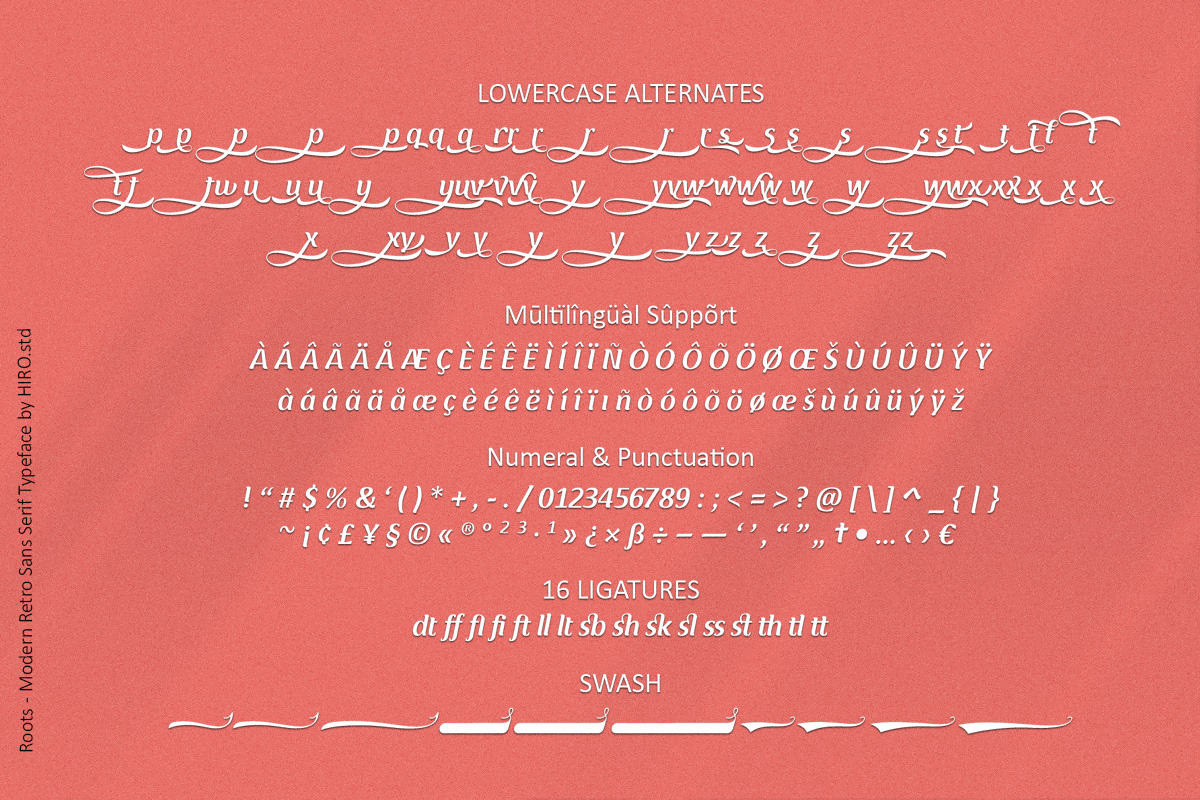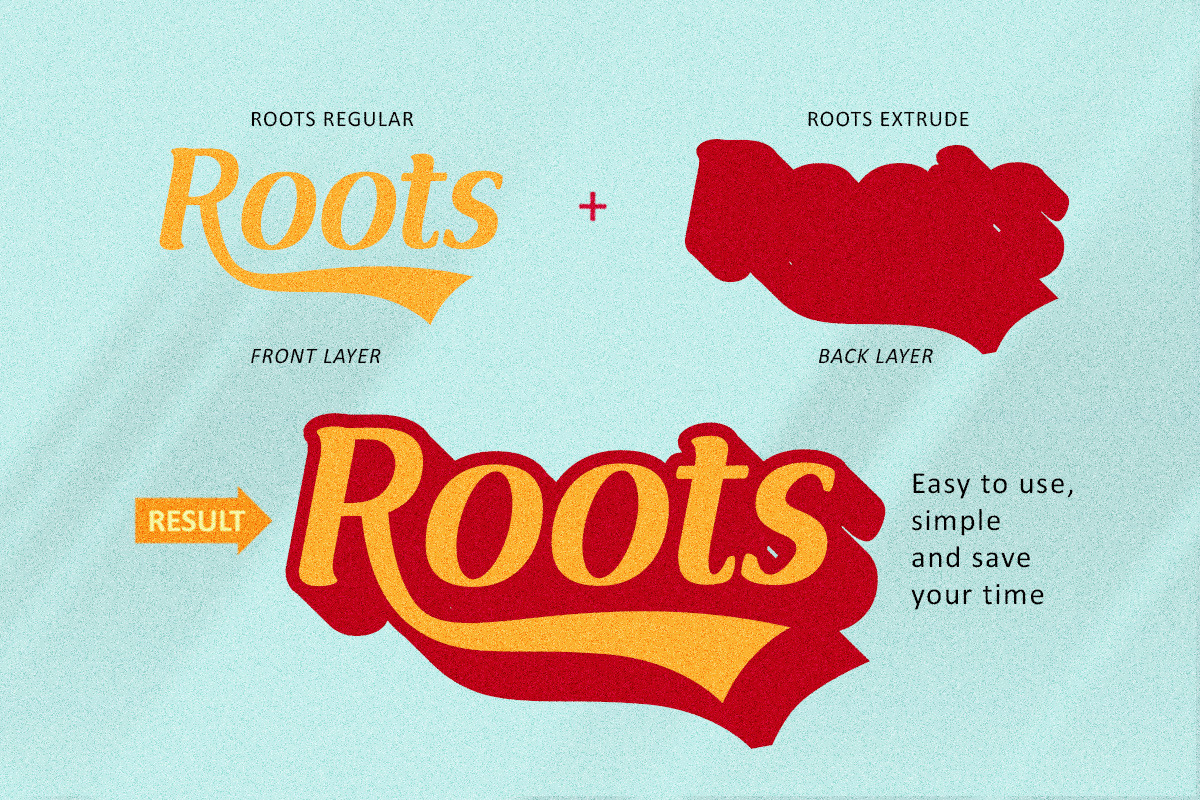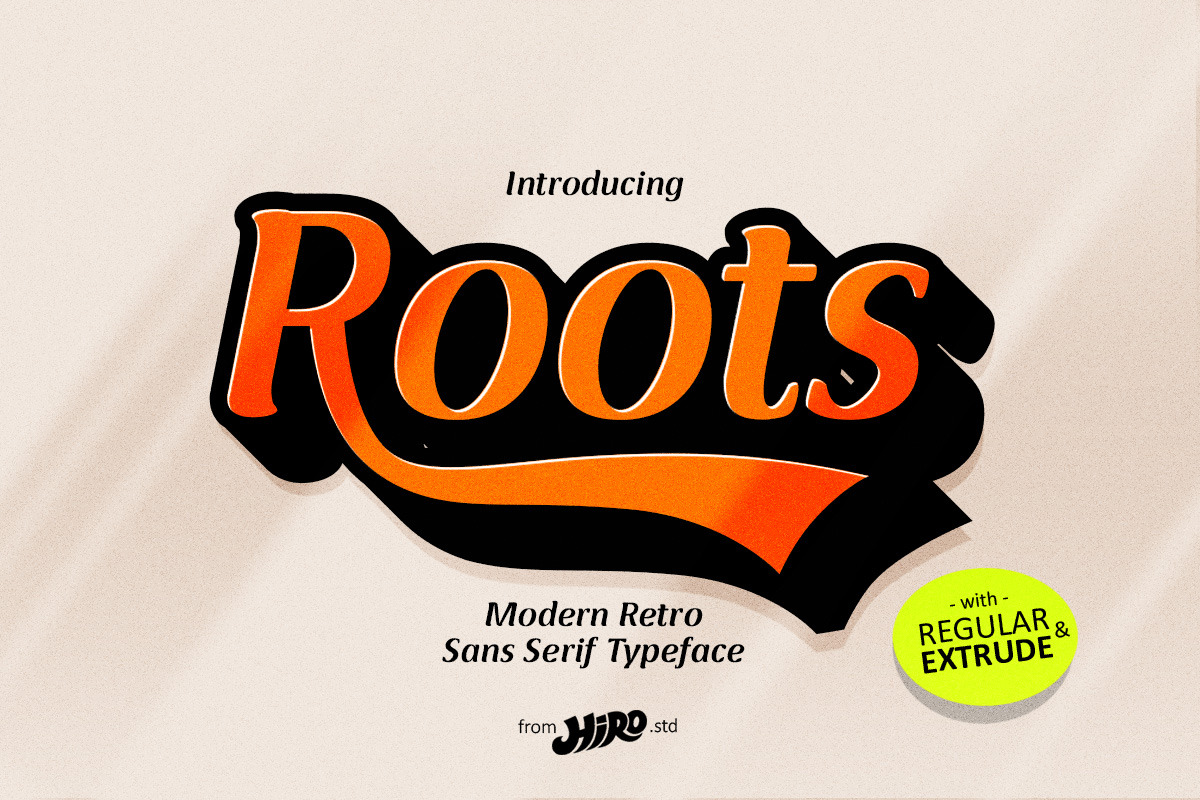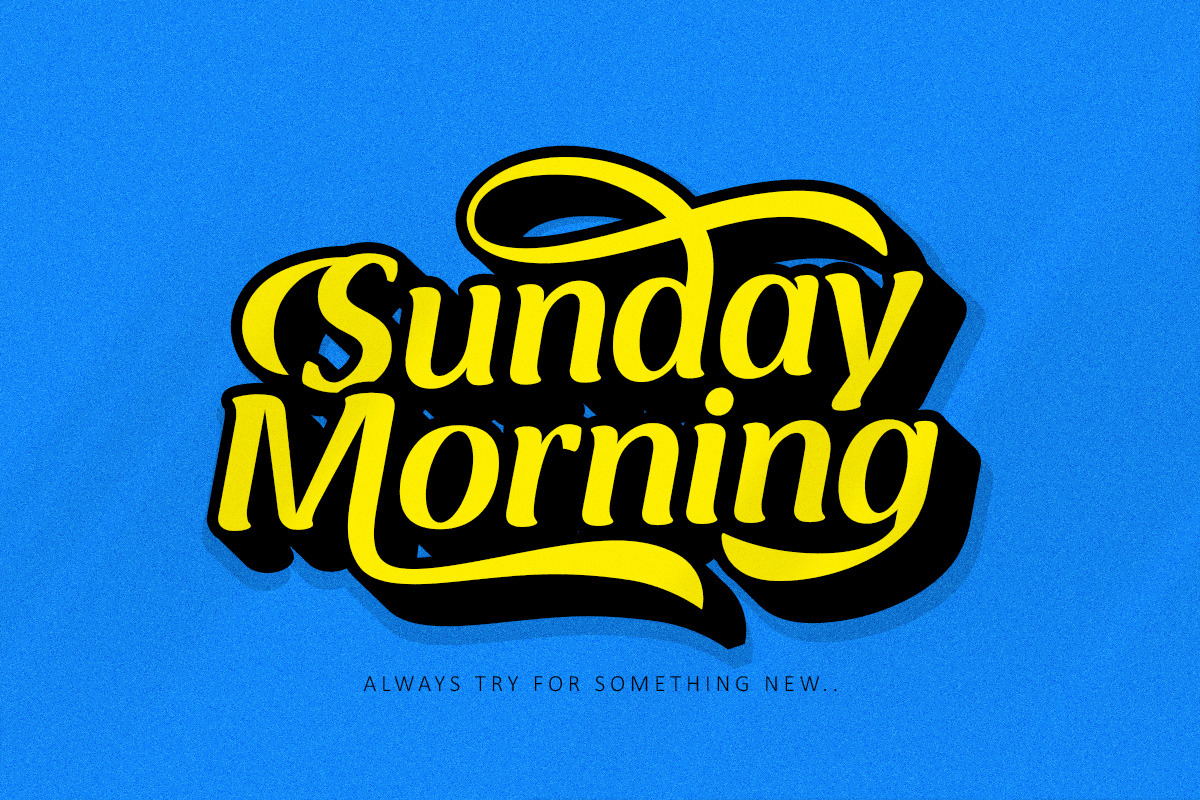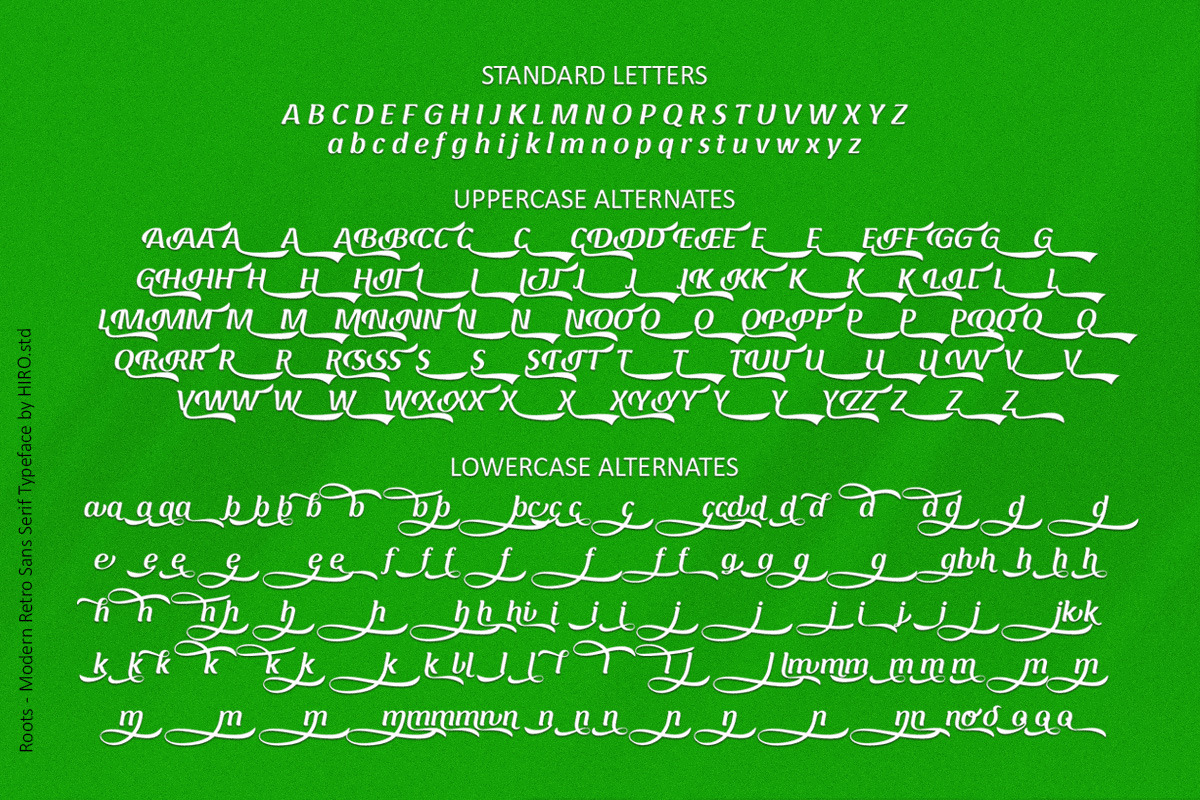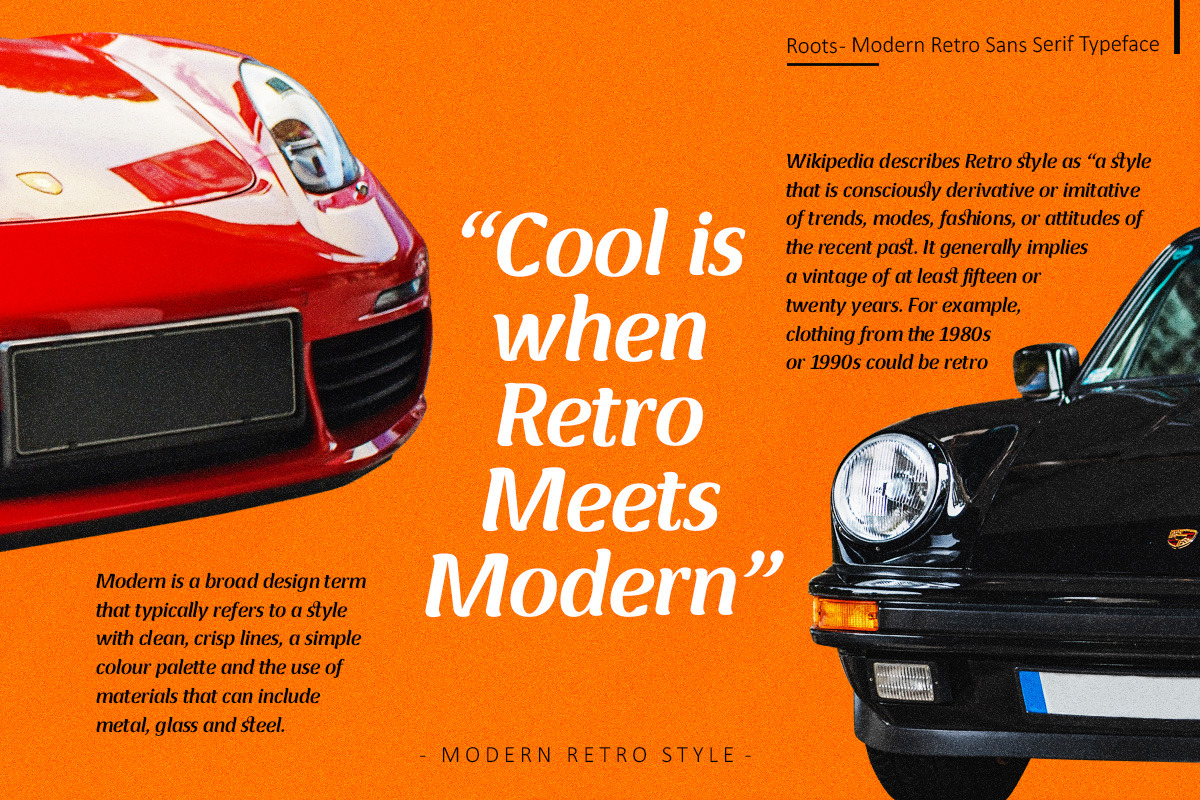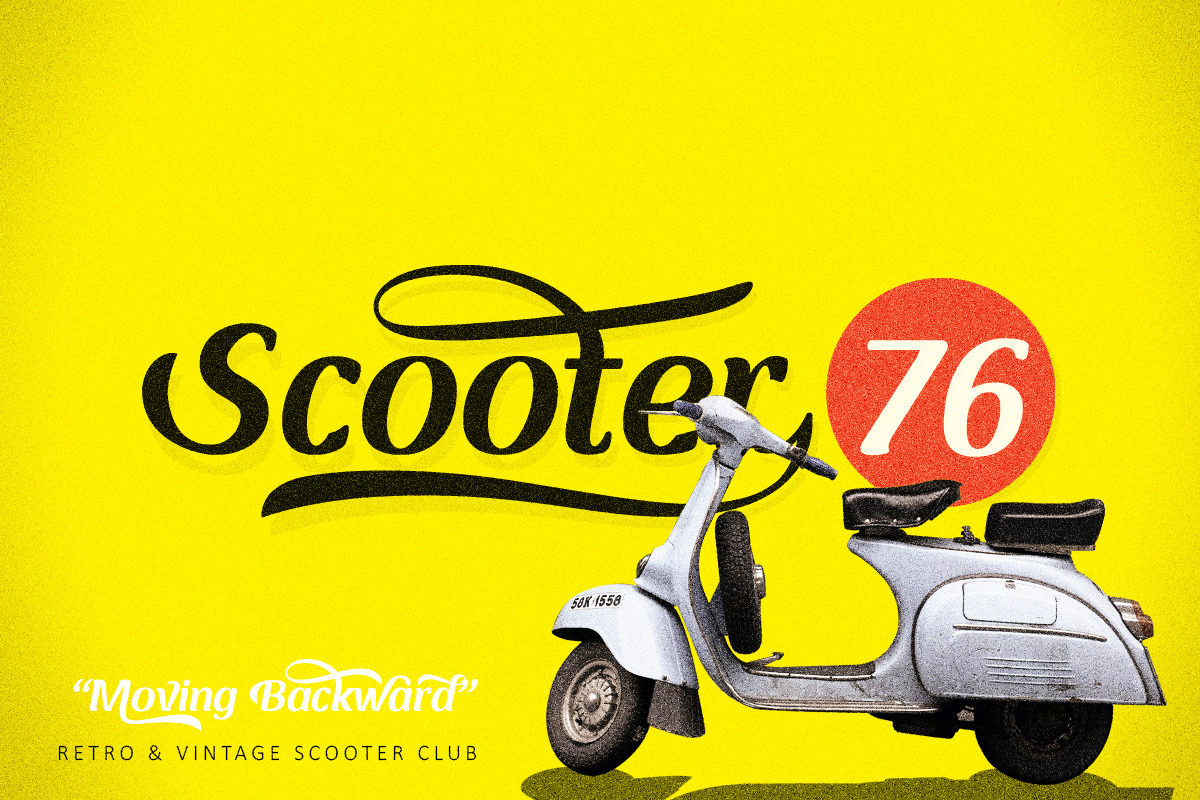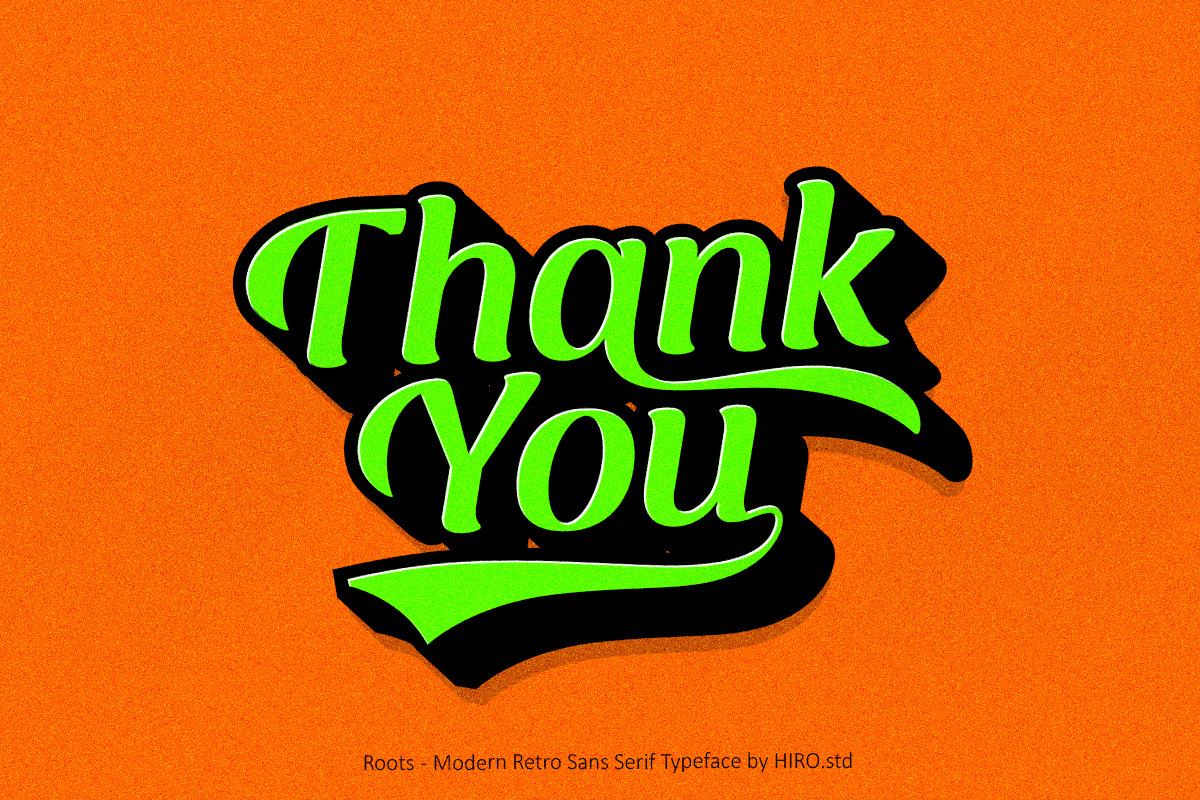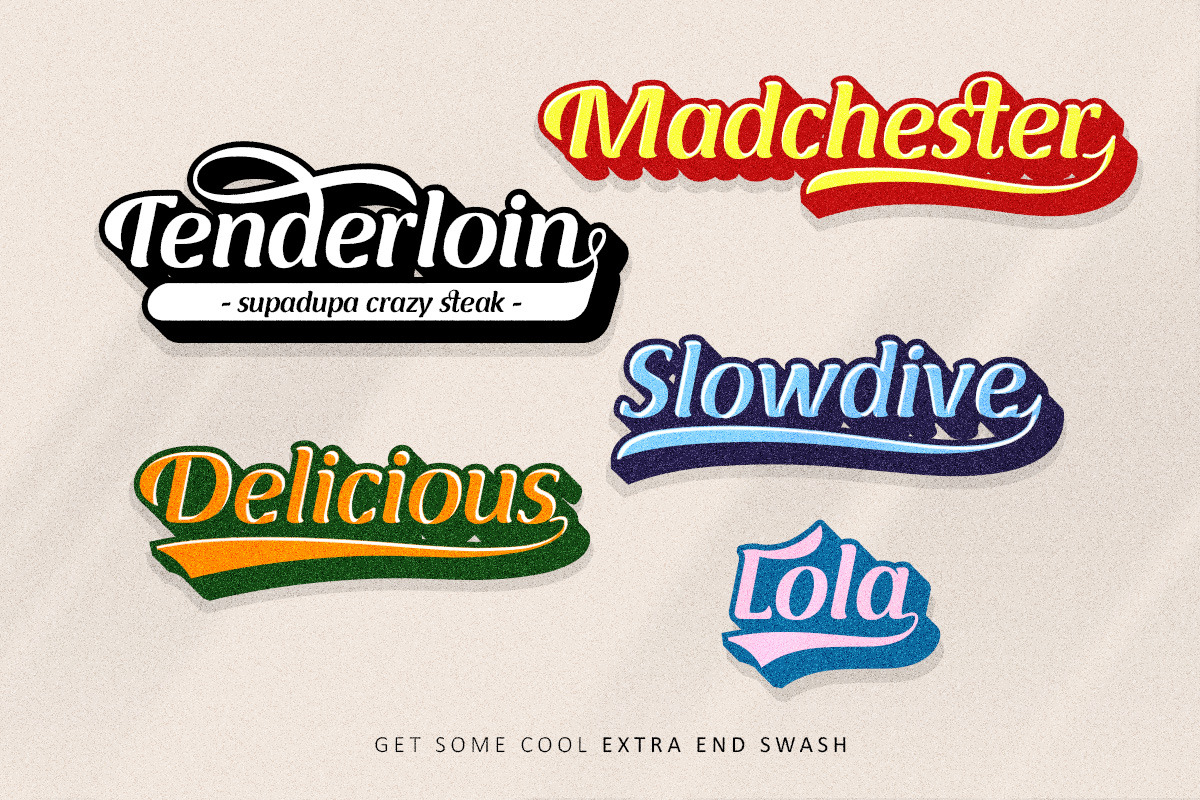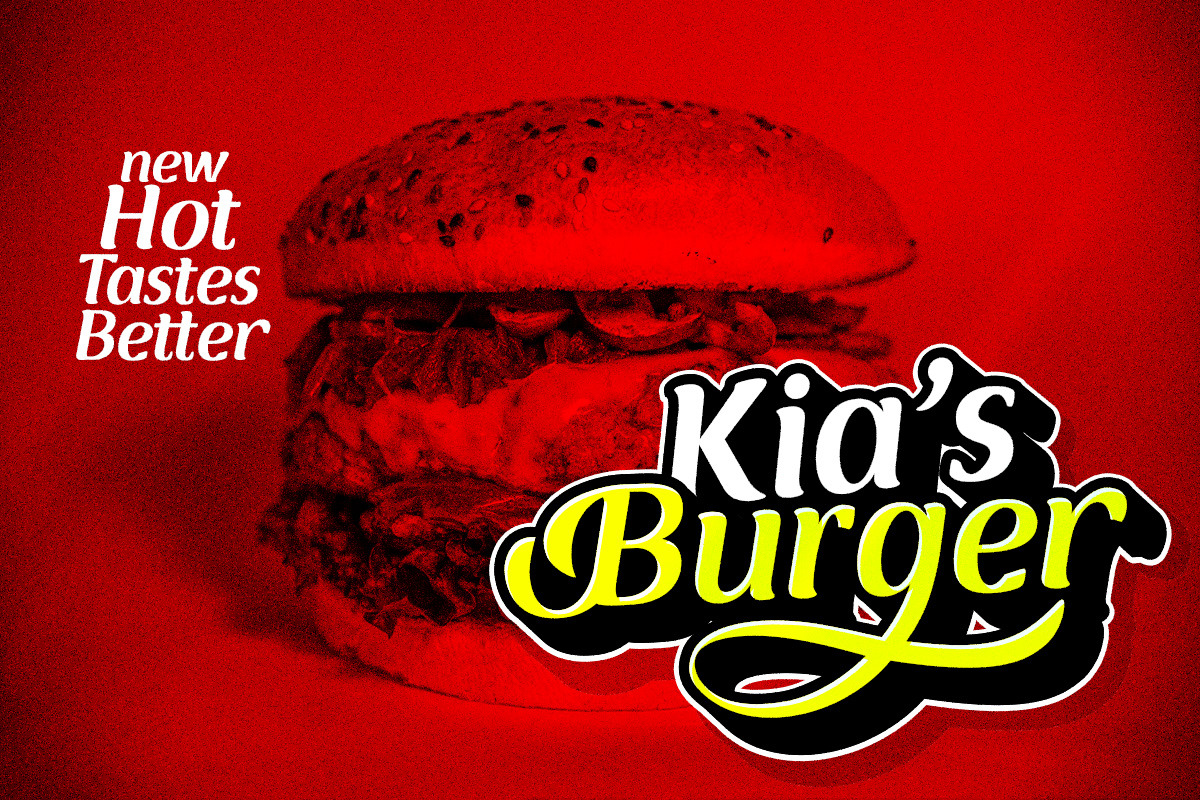
Roots - Modern Retro Font
Roots is a Modern Retro Script.
Roots has more than 553 Glyphs, It was very inspired from the modern retro typography designs in late 80's untill 90's.
This font template contains Modern Retro, Retro, Cool, Readable, Stylish, catchy and easy to use.
- Stylistic Set
- Extra end Swash